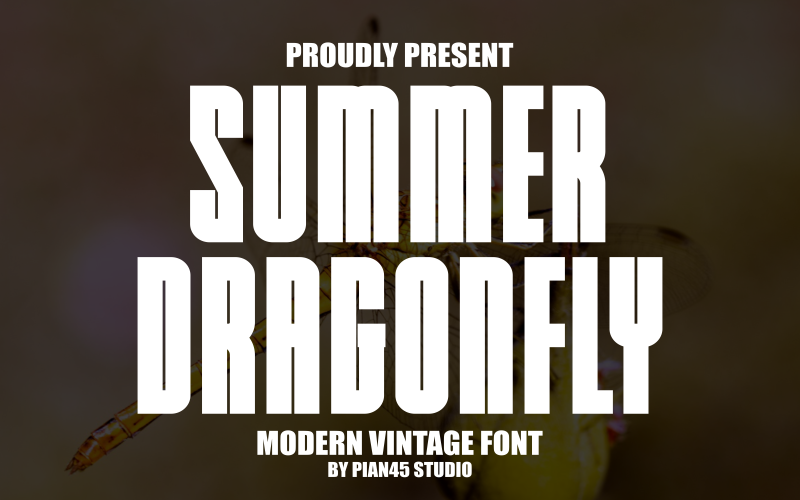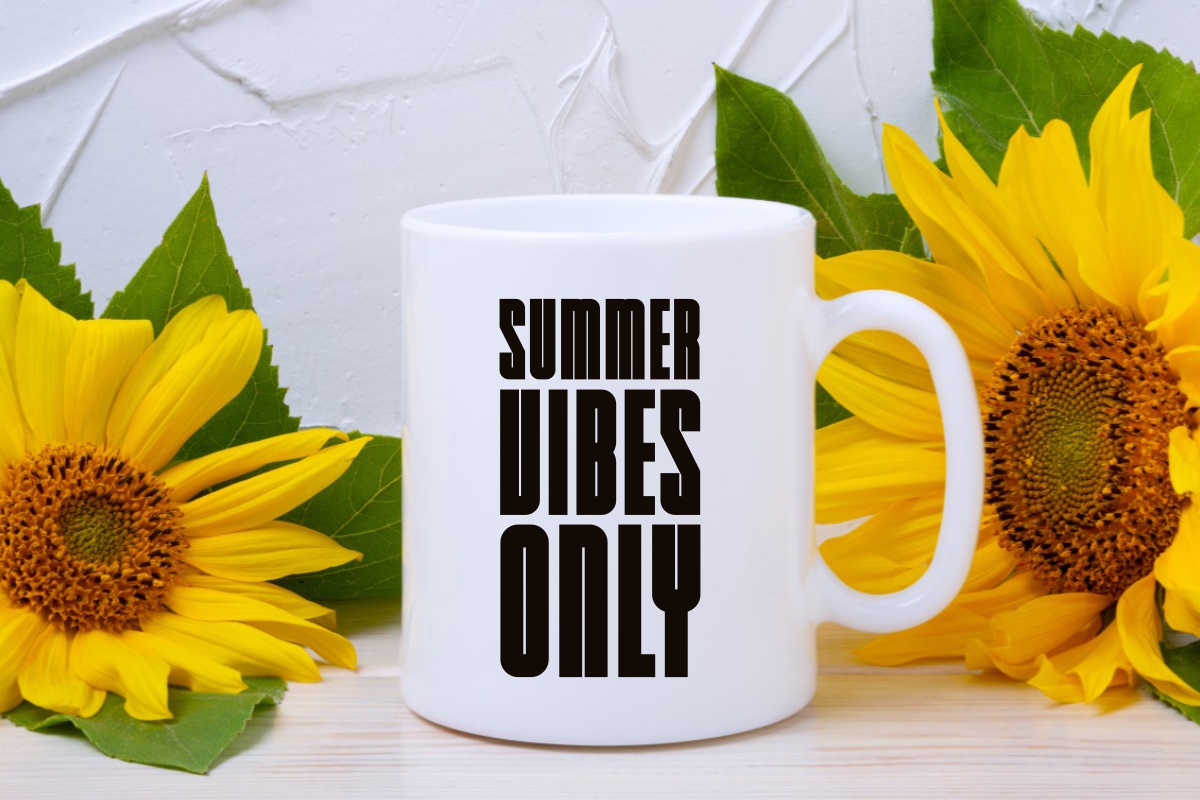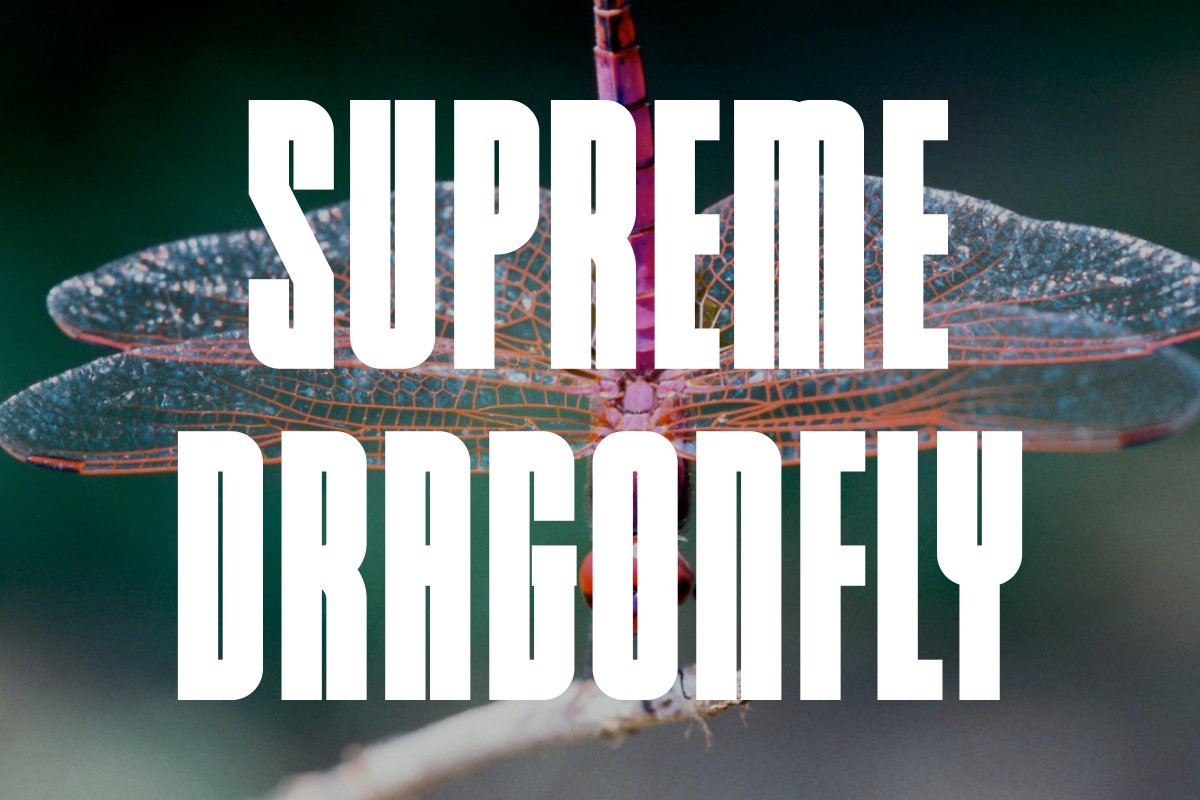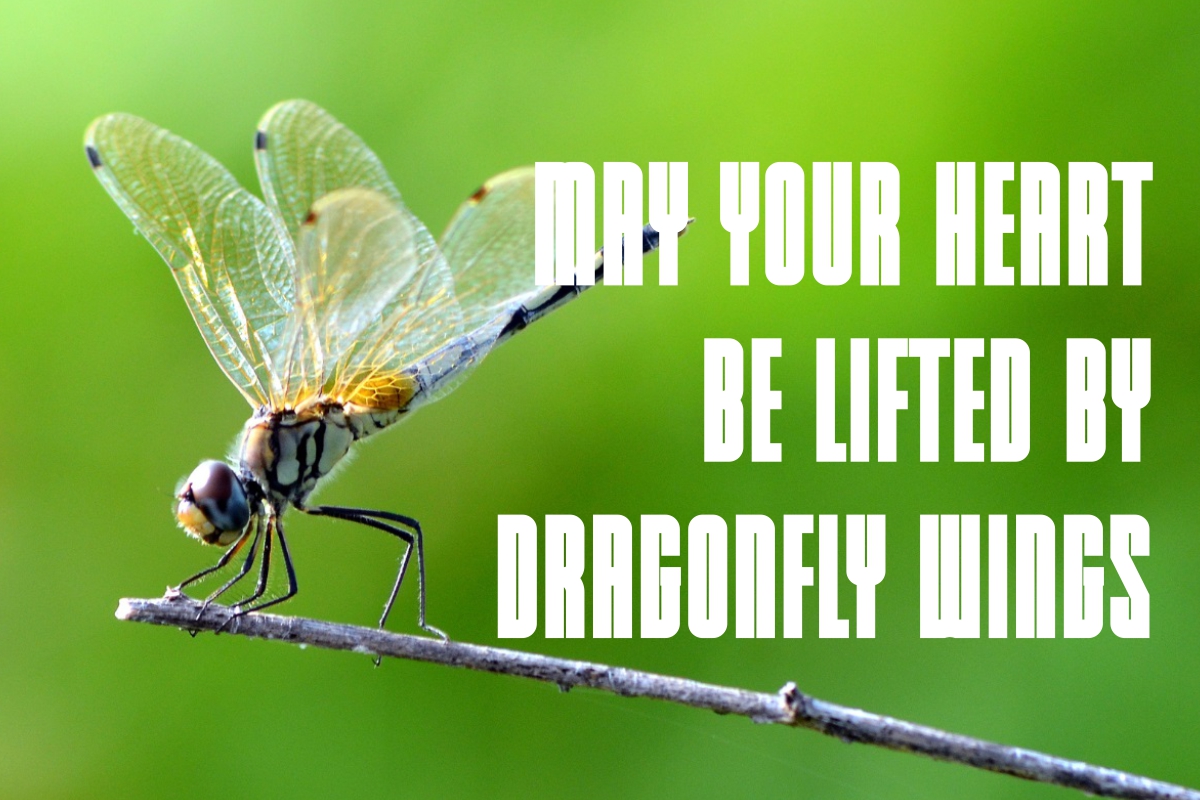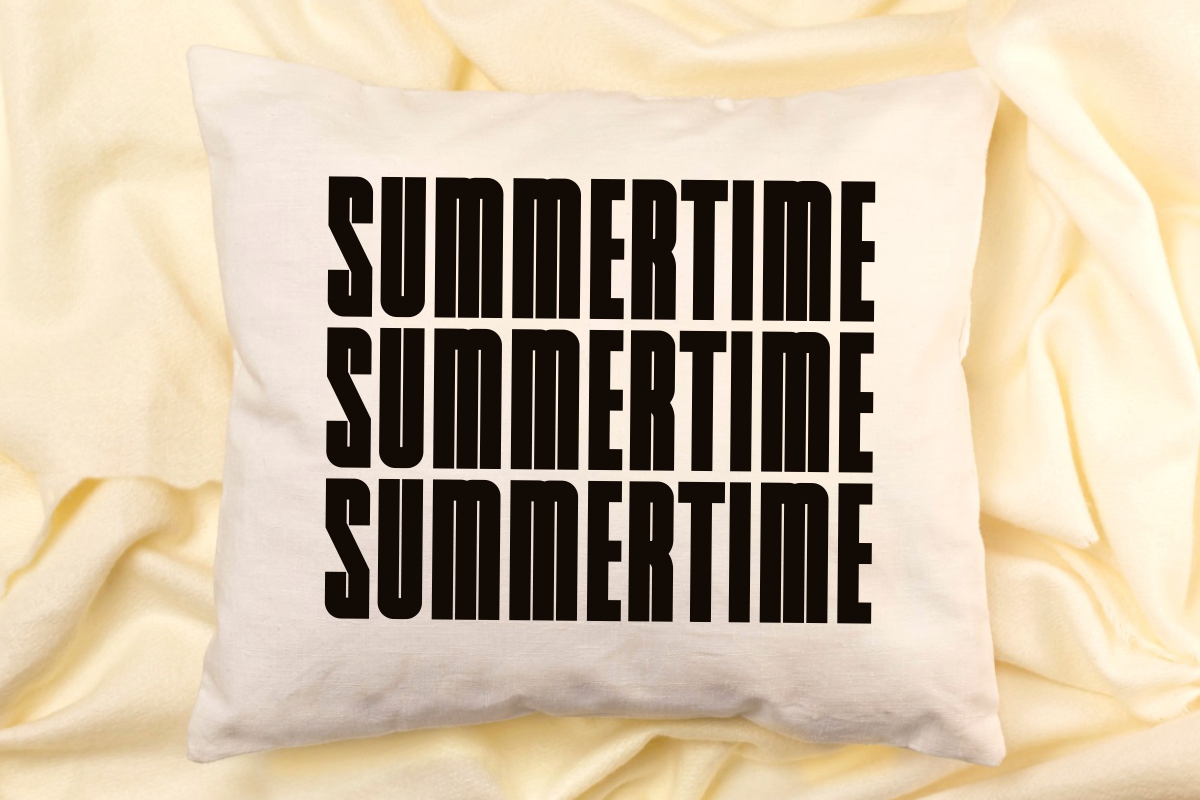
Summer Dragonfly - Modern Vintage Font
Summer Dragonfly is a striking and tall modern vintage display font, designed to capture a sense of bold, effortless style. Its clean, condensed, all-caps structure is characterized by slightly sharp edges and powerful verticality, giving it a strong yet sophisticated presence. Perfect for commanding attention in headlines, posters, logo designs, and branding projects that demand a tough, memorable, and slightly retro aesthetic. Whether used for fashion, lifestyle, or event promotion, Summer Dragonfly delivers a high-impact, contemporary vintage look.